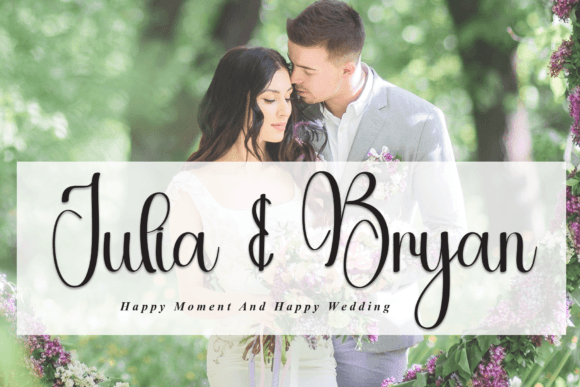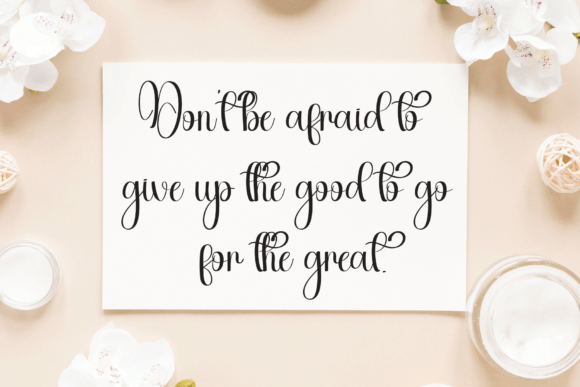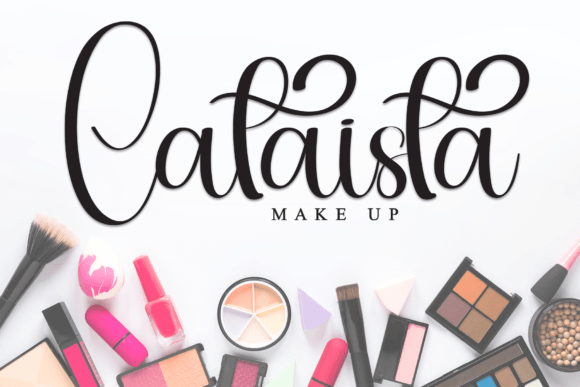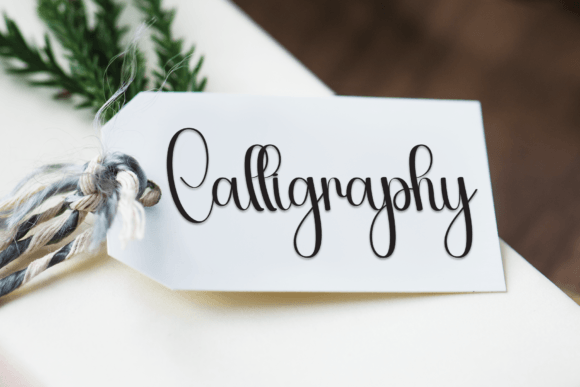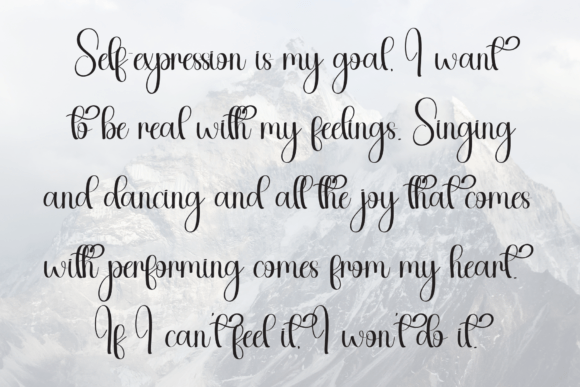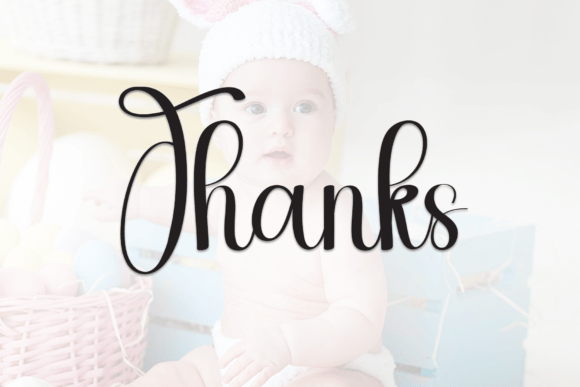
Unleashing Whimsy: The Delightful World of Baby Day Font
Do you ever find yourself scrolling through your favorite design inspiration boards, yearning for the perfect font to capture the essence of a project? That ‘aha’ moment when you stumble upon a font that makes your heart skip a beat, and you just know you’ve found ‘the one’? For designers, this feeling is all too familiar. And for those who crave a dash of whimsy in their work, Baby Day Font is sure to become an instant favorite.
Baby Day Font is a charming handwritten display typeface, expertly crafted to infuse warmth and personality into any design. Its playful, endearing quality makes it the perfect choice for wedding invitations, greeting cards, and any creative project that demands a touch of joy. Whether you’re a seasoned designer or just starting out, Baby Day Font is an invaluable addition to your toolkit, guaranteed to elevate your designs and leave a lasting impression.
- Unique Characteristics: The font features a playful, cursive design with rounded edges and subtle curves, making it perfect for baby-related projects, such as nursery decor, children’s books, and gift items.
Review of Baby Day Font
As a designer, I was excited to dive into the world of Baby Day Font, a delightful script font designed for creating a playful and endearing atmosphere. ✨ The font’s whimsical feel and gentle curves immediately caught my attention, making it perfect for projects that require a touch of warmth and innocence.
- ✨ The font’s versatility shines in its ability to work well in various contexts, from nursery decor to children’s book covers.
- ✨ The font’s high-resolution quality ensures it looks stunning on both digital and printed materials.
- ✨ The font’s unique feel and design make it stand out in a crowd, adding a personal touch to any project.
However, there are a few limitations that might impact your design experience. ⚠️ The font may not be suitable for projects that require a more formal or serious tone, as its playful nature can be overwhelming in those contexts.
Overall, I think Baby Day Font is a great addition to any designer’s toolkit, especially for projects focused on children or family-oriented themes. Its charm and character make it a standout choice, and its high-quality design ensures it will look great in any application. With a little creativity and restraint, you can unlock the full potential of this delightful font.
The Baby Day Font is perfect for creating playful and whimsical designs for children’s products, nursery decor, and baby-related businesses. It’s also great for adding a touch of personality to social media graphics, blog posts, and marketing materials. To get the most out of this font, experiment with different font sizes, colors, and layouts to create a unique and eye-catching design.